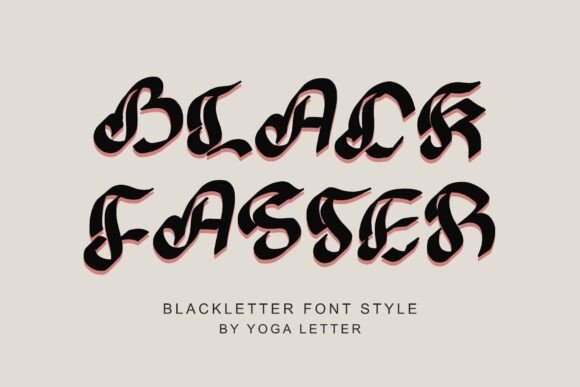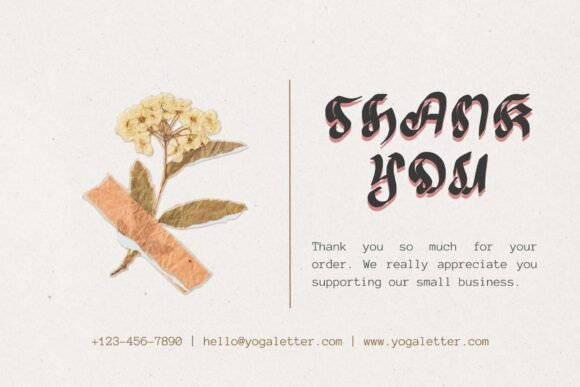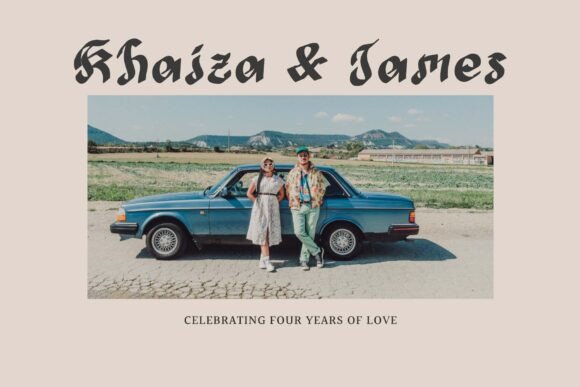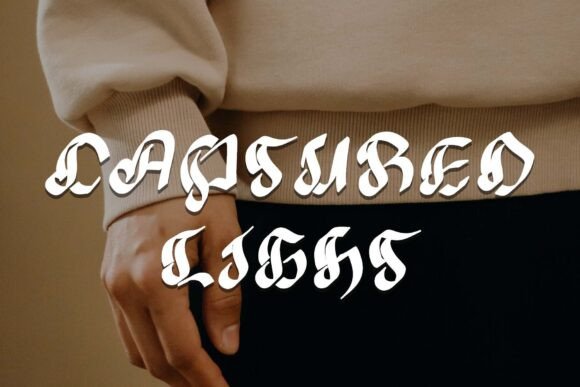
Black Faster Font
About the Black Faster Font
Experience the unique personality of Black Faster Font, a font designed for impact. “Black Faster” is a unique and elegant blackletter font. This font is equipped with uppercase, lowercase, numeral, punctuations and multilingual support. Very suitable for banners, posters, prints, tattoos, branding, summer, spring, mother’s day, st patrick’s day, easter and others.
Its strong vertical strokes and intricate details make “Black Faster” ideal for headlines, logos, and short impactful text in branding projects. It excels in creating a sense of authority and tradition, particularly effective for projects with a vintage or gothic aesthetic. However, its ornate style is less suitable for body text or UI elements, where readability is paramount. Avoid using it for large blocks of text.
Pairing “Black Faster” with a clean sans-serif like Helvetica Neue for body copy creates a strong contrast, balancing the font’s ornate nature with modern clarity. For a more traditional feel, consider a classic serif such as Garamond or a slightly more playful script font like Pacifico, depending on the desired level of formality.
The overall personality of “Black Faster” is bold and sophisticated, lending itself well to luxury brands, vintage-inspired designs, or projects aiming for a distinguished, authoritative tone. It’s less appropriate for projects needing a friendly, casual, or minimalist feel.
Black Faster Font Usage Examples
Black Faster Font Example